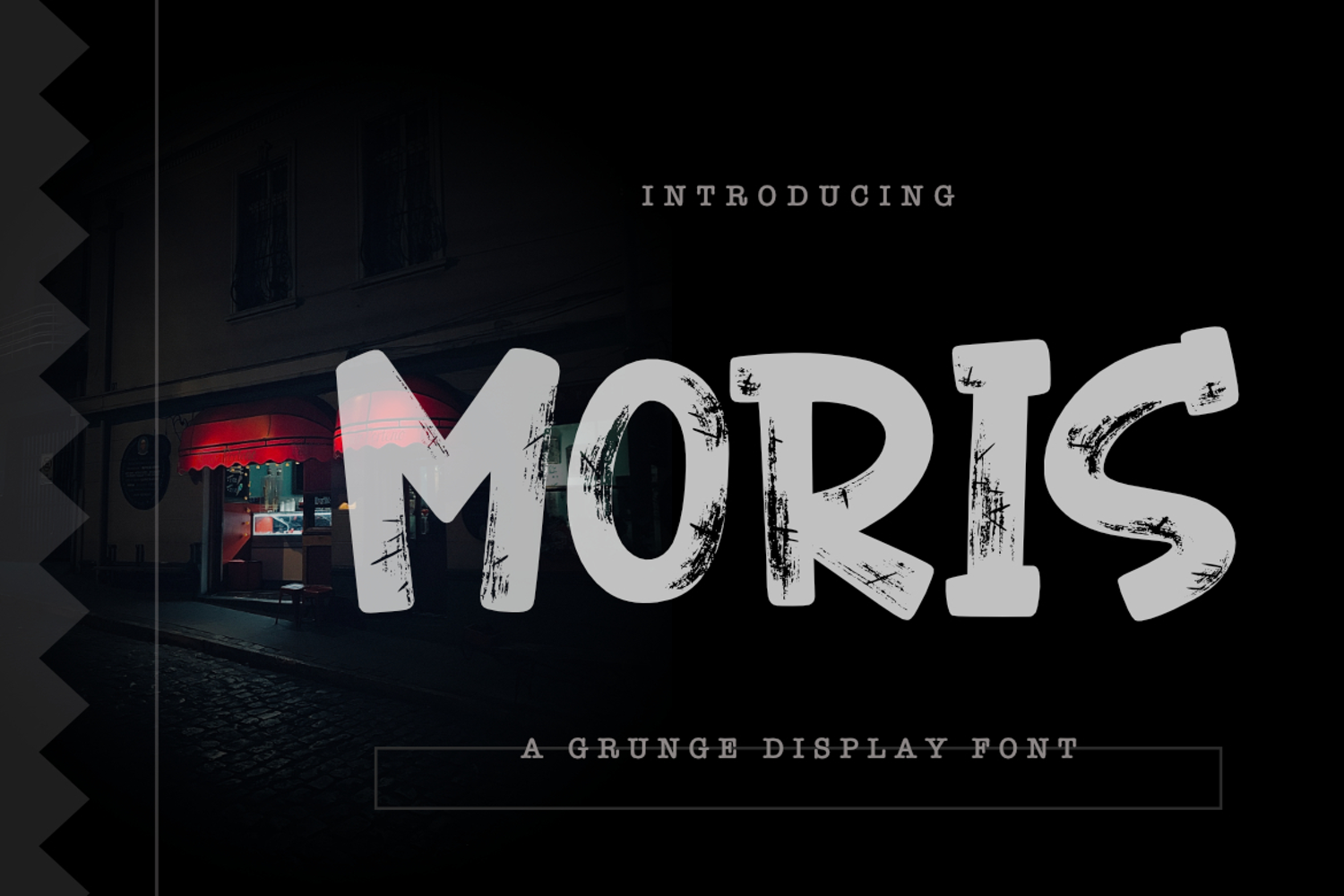
Moris a Grunge Display Font
**Moris A Grunge Display Font**
Moris a Grunge Display Font delivers a bold fusion of raw texture and unpolished character. Featuring distressed strokes, rough edges, and heavy visual impact, this typeface embraces the chaotic charm of street culture and underground art. Its thick, scraped letterforms make every word feel loud, intense, and unfiltered — ideal for designs that demand presence and attitude.
Inspired by torn posters, graffiti-marked alleys, and gritty urban scenes, Moris captures the authenticity of real-world erosion and handmade expression. Each character carries unique imperfections that enhance its rugged aesthetic, creating a striking atmosphere perfect for dark, rebellious, or high-energy design projects. Whether used at large scale or as a bold accent, Moris instantly adds tension, drama, and unmistakable personality.
**Key Features :**
* Uppercase & Lowercase
* Numerals & Punctuation
* Multilingual Support
* PUA Encoded & OpenType Features
**Suitable For :**
* Horror & Thriller Titles
* Fashion Branding & Urban Logos
* Music Posters & Album Covers
* Underground Event Flyers
* Dark Aesthetic Artworks
* Gaming Graphics & YouTube Thumbnails
* Retro Grit & Vintage Distress Concepts
With _Moris a Grunge Display Font,_ your designs gain a raw, aggressive energy — turning simple text into a powerful visual statement filled with grit, depth, and attitude.